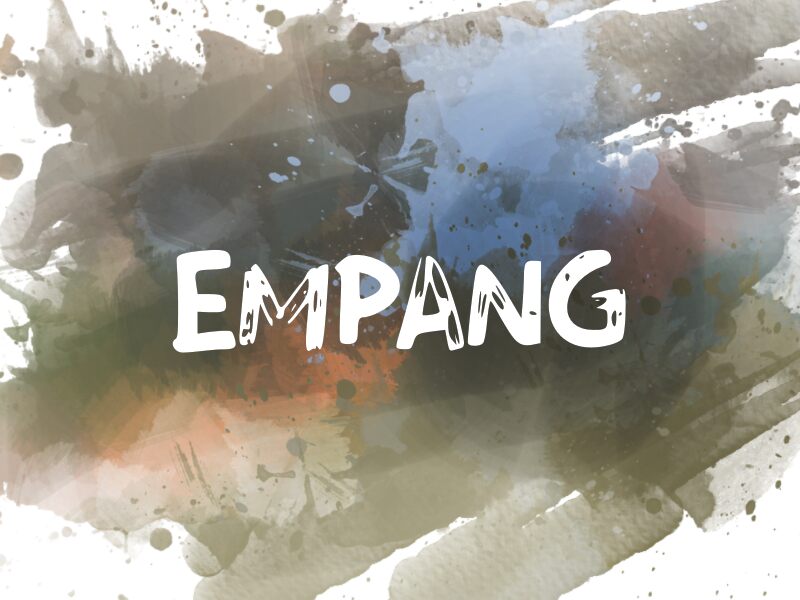
Empang
The brush script font Empang, designed by Wahyu Eka Prasetya, is perfect for adding a touch of elegance and style to your projects. Empang is suitable for making logos, designing greeting cards and creating posters.